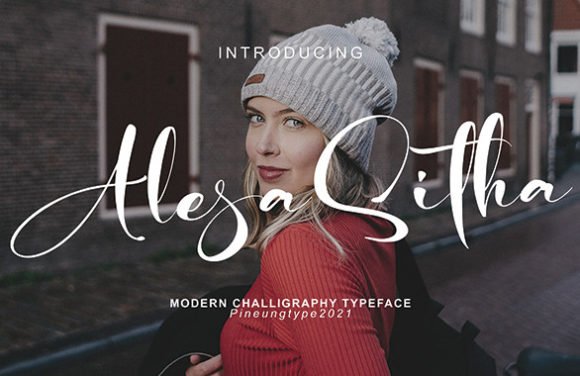
Discover the Timeless Elegance of Alesa Sitha Font
There’s nothing quite like the thrill of staring at a blank canvas, feeling the urge to create something extraordinary. You’ve got an idea, but it’s still floating around in your head, waiting to be brought to life. You take a deep breath, grab your tools, and dive into the world of typography. And that’s where Alesa Sitha Font comes in – the perfect companion to help you infuse your project with an authentic, high-end vibe.
Alesa Sitha Font is an exquisite script font, carefully crafted in a calligraphic style that exudes sophistication and elegance. Whether you’re working on a luxury brand, a high-end magazine, or a premium e-commerce website, this font is sure to elevate your design to new heights. With its stylish, expensive look, Alesa Sitha Font is a valuable asset for designers who demand the best.
- Unique Characteristics: Alesa Sitha Font features intricate, hand-drawn designs and detailed flourishes, making it a great choice for artistic and creative projects.
Alesa Sitha Font Review
Overall, I think the Alesa Sitha Font is a beautiful addition to any designer’s toolkit. Here are some things that I think work well:
- ✨ Elegant and sophisticated look: The Alesa Sitha Font has a unique and refined aesthetic that would be perfect for luxury brands or high-end publications.
- ✨ High level of detail: The font is highly customizable, with a range of weights and styles that can be used to create a wide range of effects.
- ✨ Good legibility: Despite its intricate design, the Alesa Sitha Font is still easy to read, making it a great choice for body text or headings.
However, there are a few limitations that I think are worth noting:
- ⚠️ Limited font sizes: While the font is highly customizable, I found that it can start to look a bit pixelated when scaled up to larger font sizes.
- ⚠️ Not ideal for digital use: Due to its high level of detail, the Alesa Sitha Font may not be the best choice for digital use, such as on websites or mobile apps.
Overall, I think the Alesa Sitha Font is a great choice for designers who are looking to create a sophisticated and elegant look. While it may have a few limitations, I think its unique aesthetic and high level of customization make it well worth considering.
Tips for Getting the Most Out of Alesa Sitha Font
Use Alesa Sitha Font for designs that require a unique and elegant touch, such as invitations, wedding stationery, or luxury branding.
Experiment with different font sizes and colors to create a visually appealing contrast.
Pair Alesa Sitha Font with other elegant fonts or graphics to create a sophisticated design.
Alesa Sitha Font is ideal for:
- Luxury branding and packaging
- Elegant business cards and letterheads
- High-end event invitations and promotional materials
Alternatives to Alesa Sitha Font
Playfair Display is a luxurious, high-end font that is perfect for titles and headings. It features elegant and refined lettering with intricate details. It is ideal for use in magazines, advertising, and high-end branding. Playfair Display is similar to Alesa Sitha Font in its elegant and refined nature, but it is more ornate and luxurious.
Merriweather is a classic serif font that is perfect for body text and is often used in books and academic papers. It is a timeless choice that exudes a sense of tradition and sophistication. Merriweather is similar to Alesa Sitha Font in its classic and timeless nature, but it is more subdued and less ornate.
Alesa Sitha supports the Latin, Cyrillic, and Greek character sets. This means you can use the font for designs that require text in multiple languages. However, please note that the font may not support certain special characters or symbols.
Q: Can I customize Alesa Sitha to fit my specific design needs?
Yes, Alesa Sitha is a highly customizable font. You can adjust the font’s weight, width, and other parameters to fit your specific design needs. However, please note that excessive customization may affect the font’s readability and overall appearance.